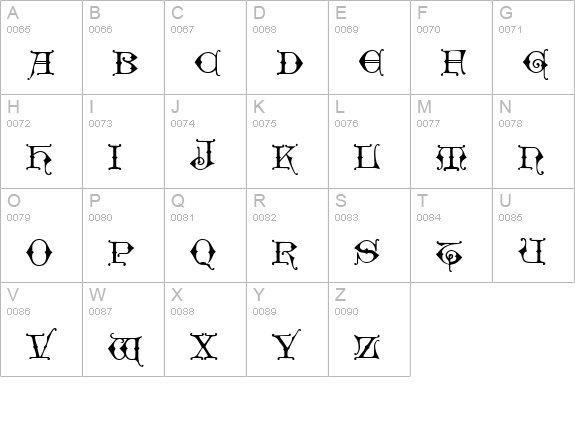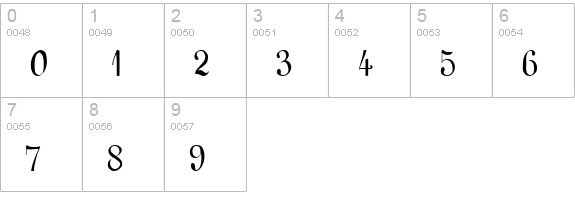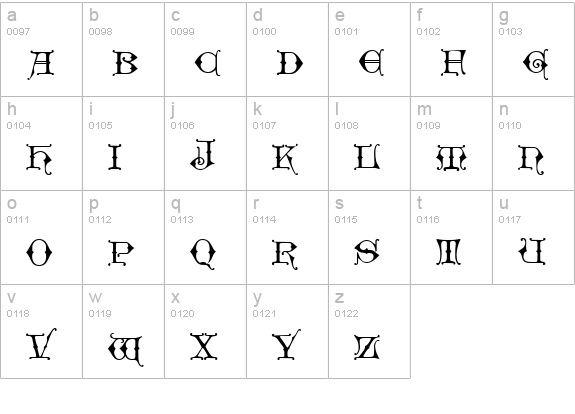
Geschlossen Gotik Kaps Font Details
Geschlossen Gotik Kaps font is a stunning display typeface that exudes a sense of gothic elegance and mystique. With its intricate and ornate letterforms, this font is perfect for creating captivating headlines, logos, and branding materials that demand attention. This unique font is meticulously crafted with closed contours, giving it a solid and cohesive appearance that sets it apart from traditional gothic fonts. The sharp angles and intricate details of Geschlossen Gotik Kaps add a touch of sophistication and drama to any design project. What's even better is that Geschlossen Gotik Kaps font is available for free download at FontsMarket.com. Whether you're a designer looking to add a touch of gothic flair to your work or a typographer seeking a standout typeface for your collection, Geschlossen Gotik Kaps is a must-have font that combines beauty and functionality seamlessly. Download it now and unleash your creativity with this exquisite typeface.